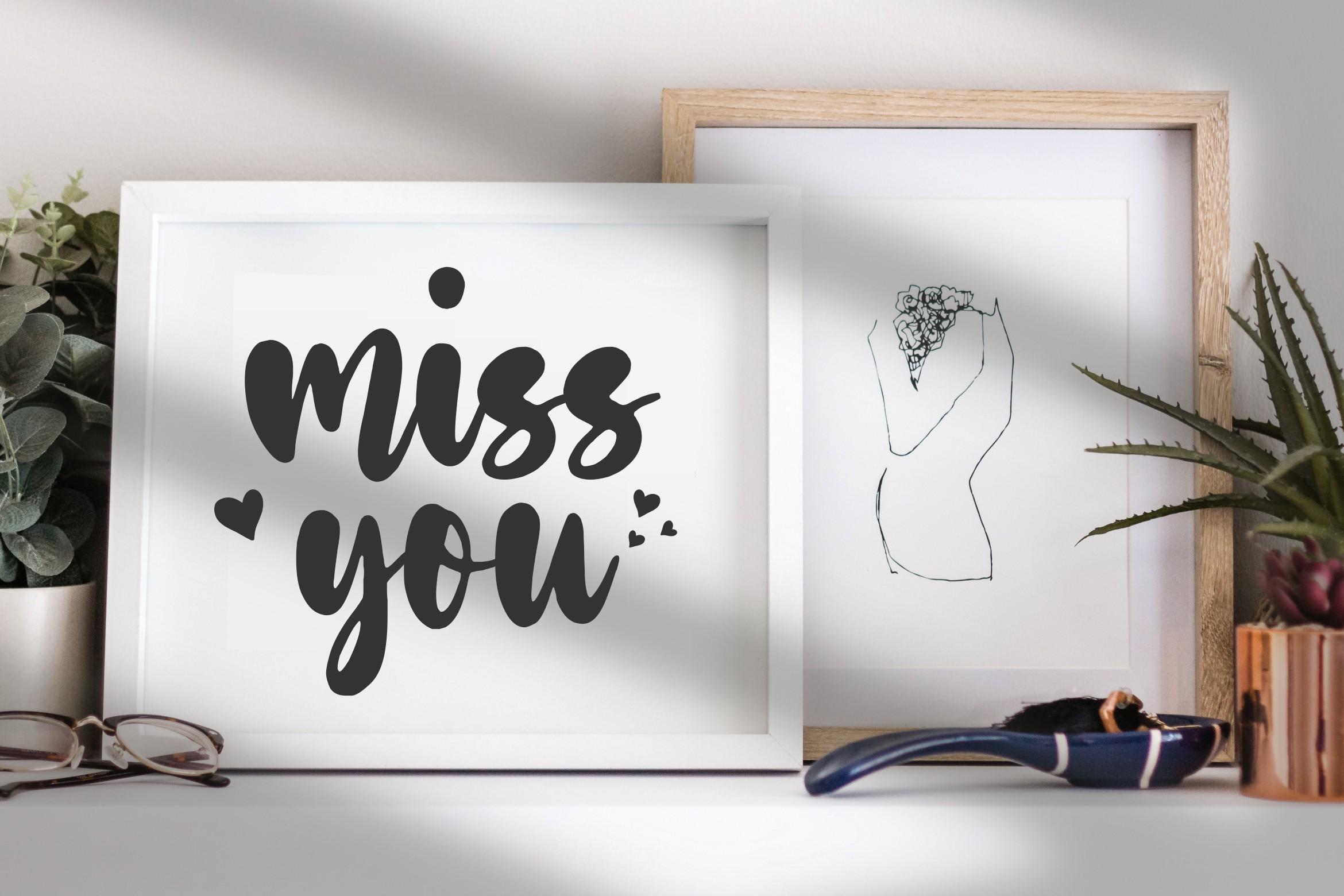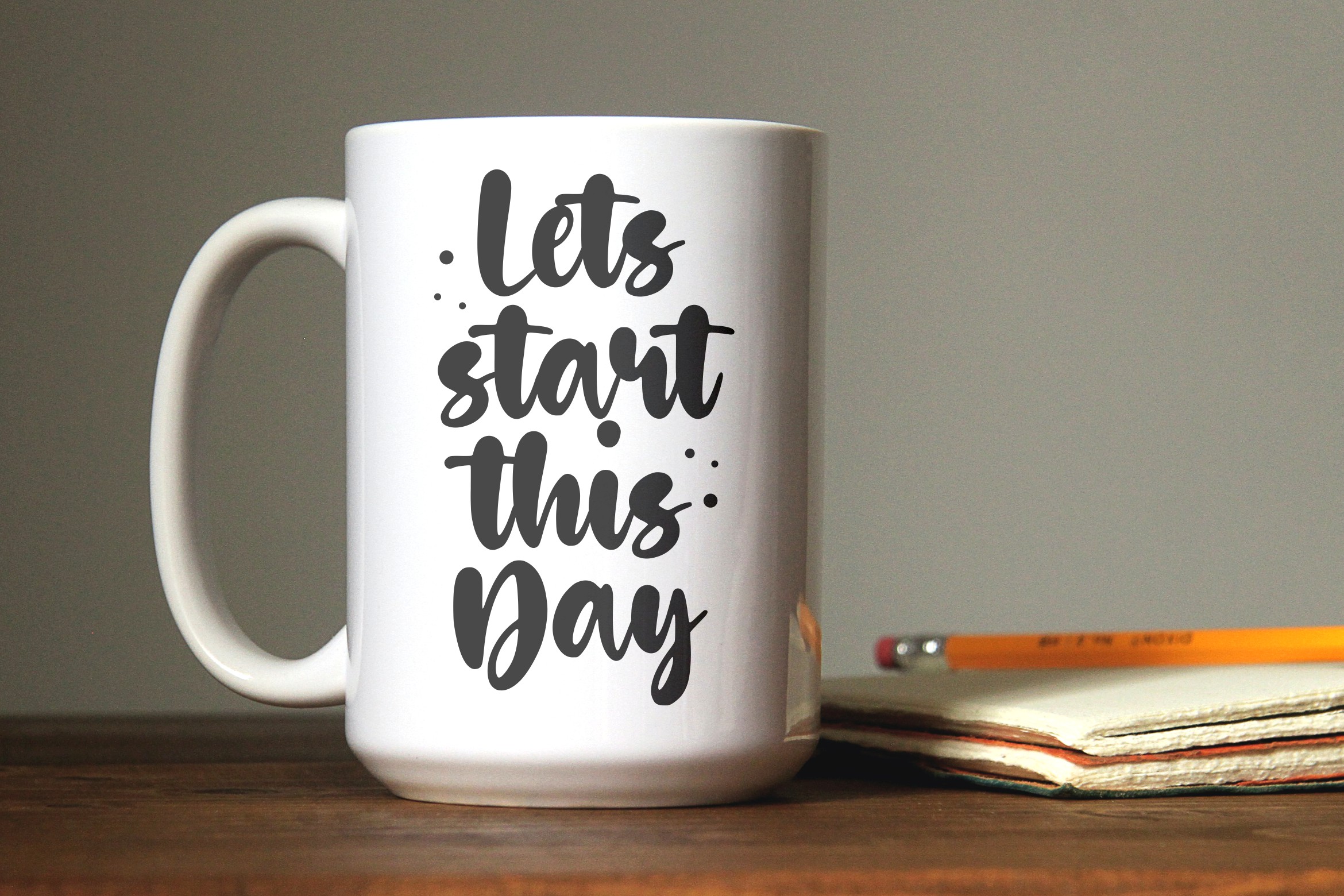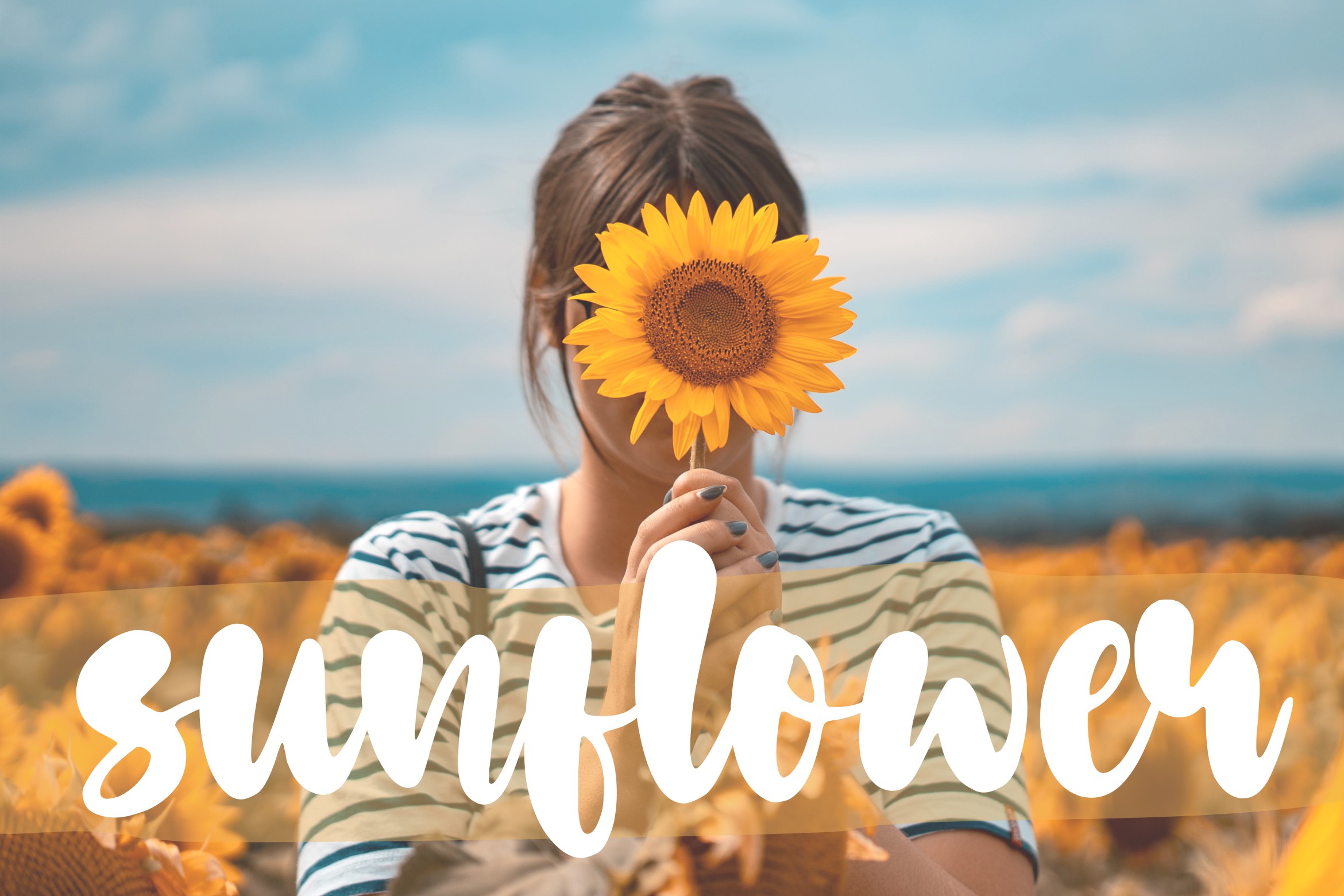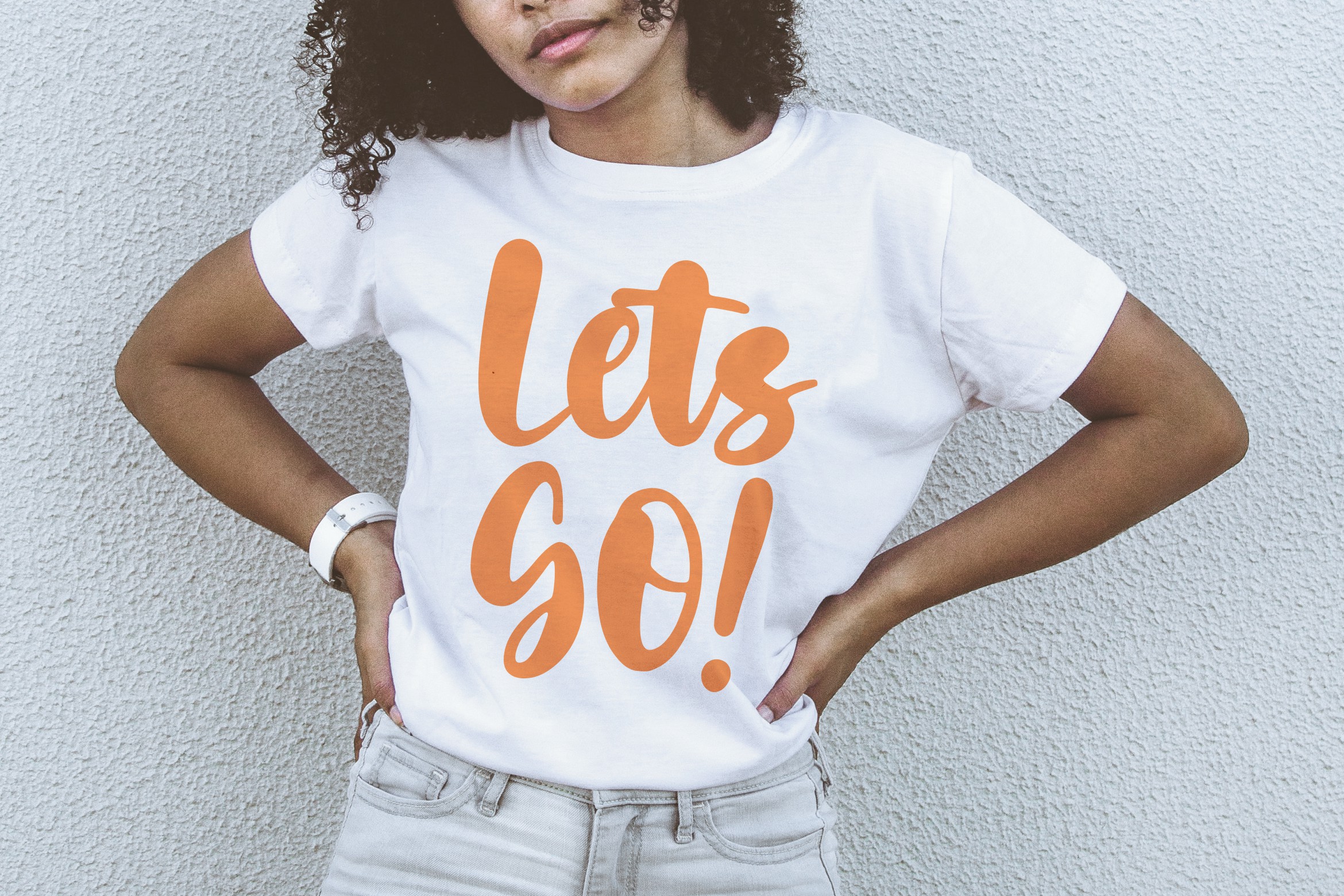
Golden Dates Fat Font
Golden Dates Fat Script Font
Proudly Present, Golden Dates Font.
Golden Dates Fat Handbrushed Font
Golden Dates is a stylish and trendy script font. It looks stunning on wedding invitations, thank you cards, quotes, greeting cards, logos, business cards and every other design which needs a handwritten touch.